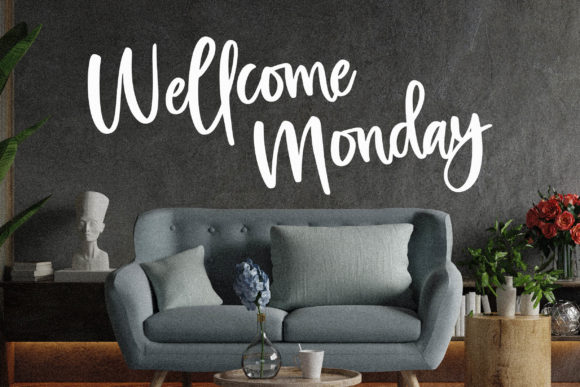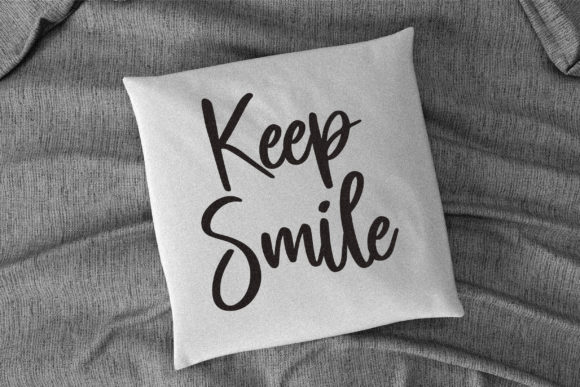
Babyrich Font
db-ku.com - Script & Handwritten -- Babyrich is a splendid handwritten font that embodies authenticity and charm in every character. It’s great typography for messages that needs to stand above the background!